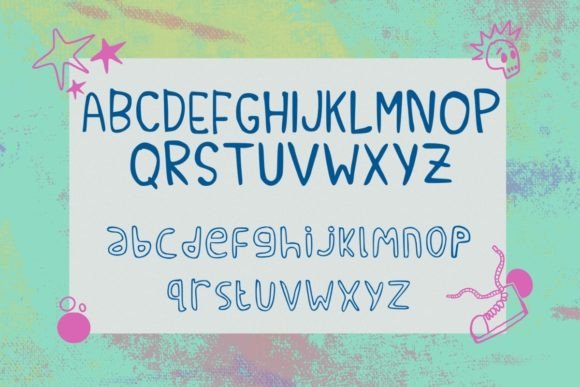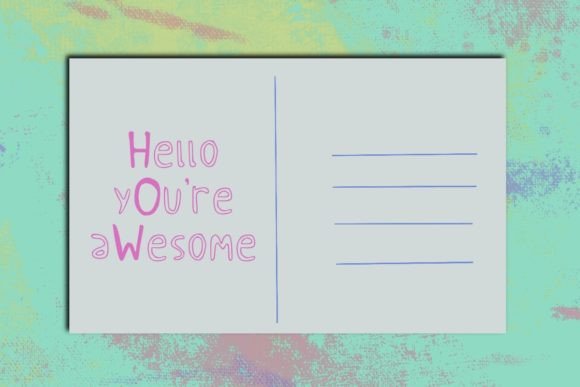
Introduction to Silly Type Font
Have you ever stared at a blank canvas, struggling to come up with the perfect design concept for your next creative project? You’ve got a clear idea in your mind, but the words just won’t come together until… you stumble upon the perfect font. That’s exactly what happened to me when I discovered the Silly Type Font. This charming handwritten font instantly transformed my design and added a playful touch that I just couldn’t get enough of.
As a designer, you know the importance of finding the right font to bring your ideas to life. And let’s be honest, sometimes it’s the quirky and whimsical fonts like Silly Type Font that truly make a design stand out. Not only is it a free download, but its transparent background and high-quality design make it the perfect addition to any creative project.
Key Features of Silly Type Font
- High-quality design resource suitable for creative projects, available for free download.
- Includes a variety of font styles with transparent backgrounds for seamless integration into designs.
- Designed with a unique, playful aesthetic that adds a touch of whimsy to any design.
- Perfect for designers seeking a fun and creative design resource for their next project.
Honest Review: Silly Type Font
I recently stumbled upon the Silly Type Font and was excited to try it out for my latest design project. After some experimentation, here’s my honest review.
- High-quality design: The Silly Type Font is a great addition to any design resource collection. The font is well-designed and visually appealing.
- Customization options: The font comes with a transparent background, giving you the flexibility to customize it to fit your project’s needs.
- Limited font styles: The Silly Type Font only comes in a few styles, which might limit its use in more complex design projects.
Overall, I’d say the Silly Type Font is a great addition to any design resource collection, but it’s not without its limitations. If you’re looking for a free, high-quality font for your creative project, it’s definitely worth checking out. Just be aware of the potential limitations before using it in a critical design project.
Getting the Most Out of Silly Type Font
For the best results, use Silly Type Font on a transparent background and combine it with high-quality images to create a visually appealing design.
Silly Type Font is ideal for creative projects such as social media graphics, flyers, posters, and business cards.
It’s also a great resource for designers looking for a unique and eye-catching font to add to their design library.